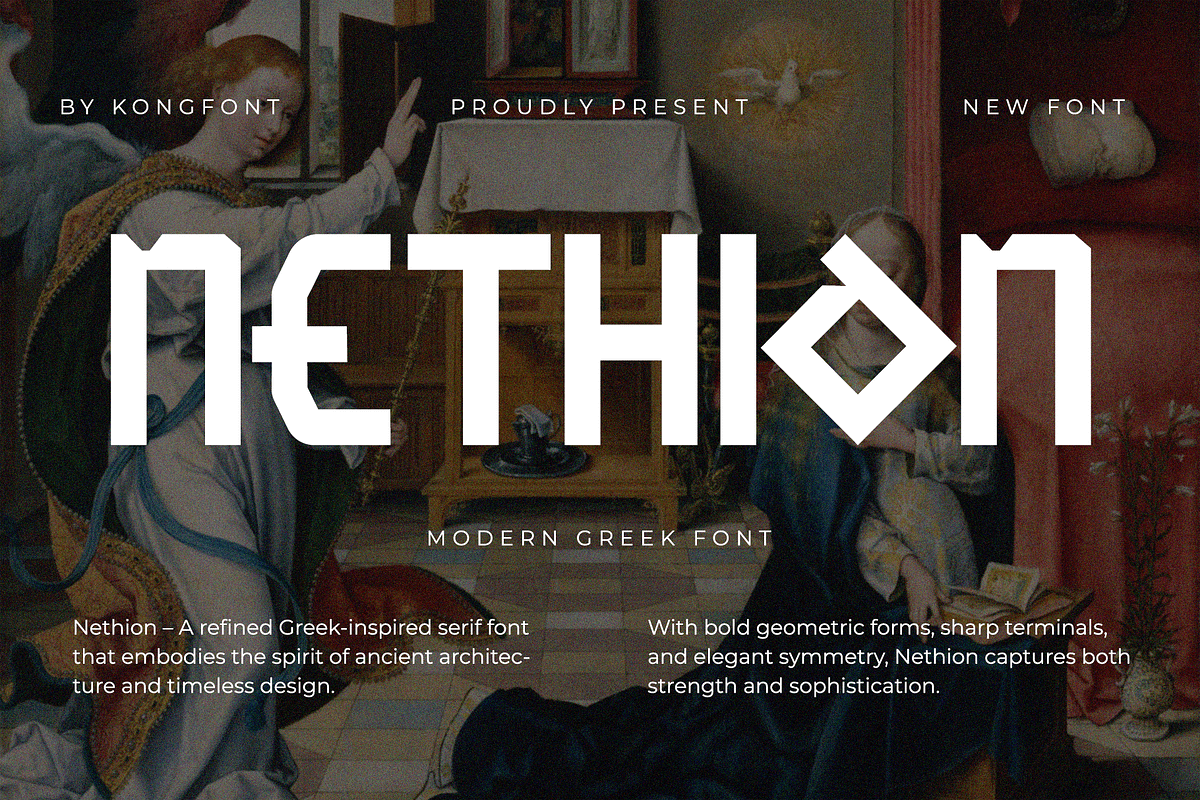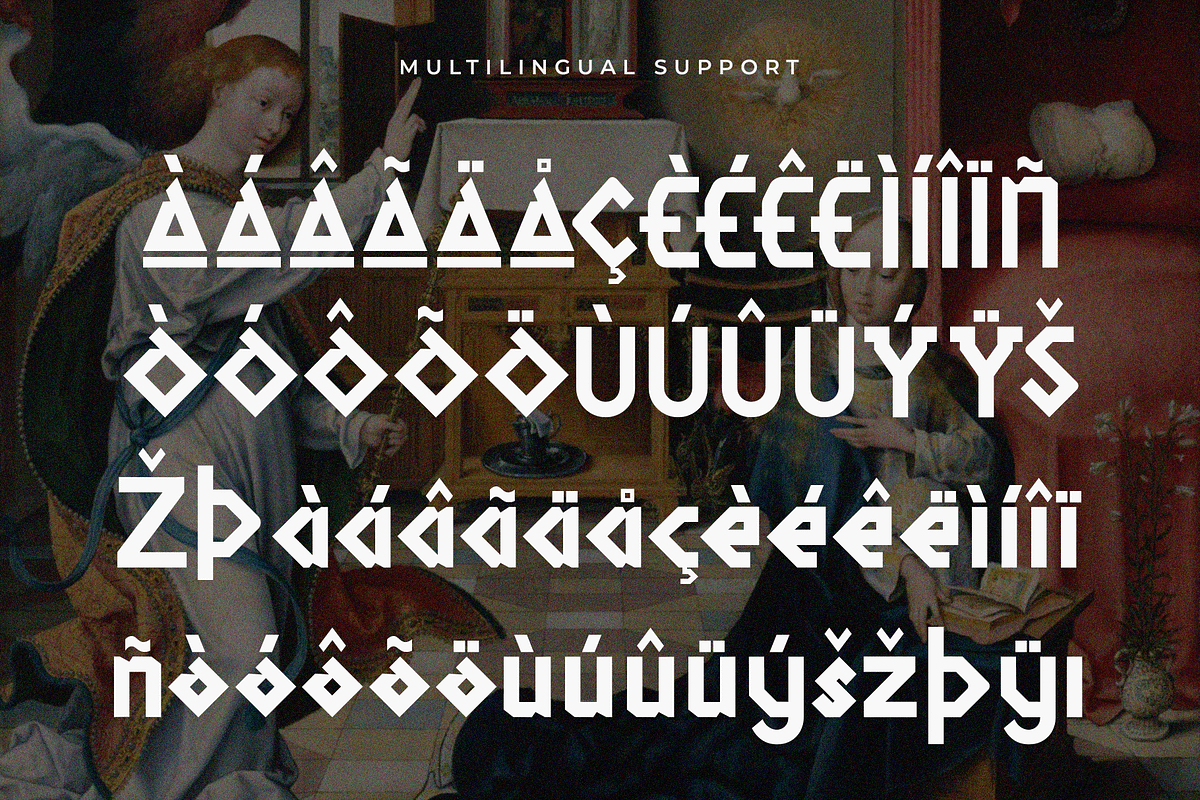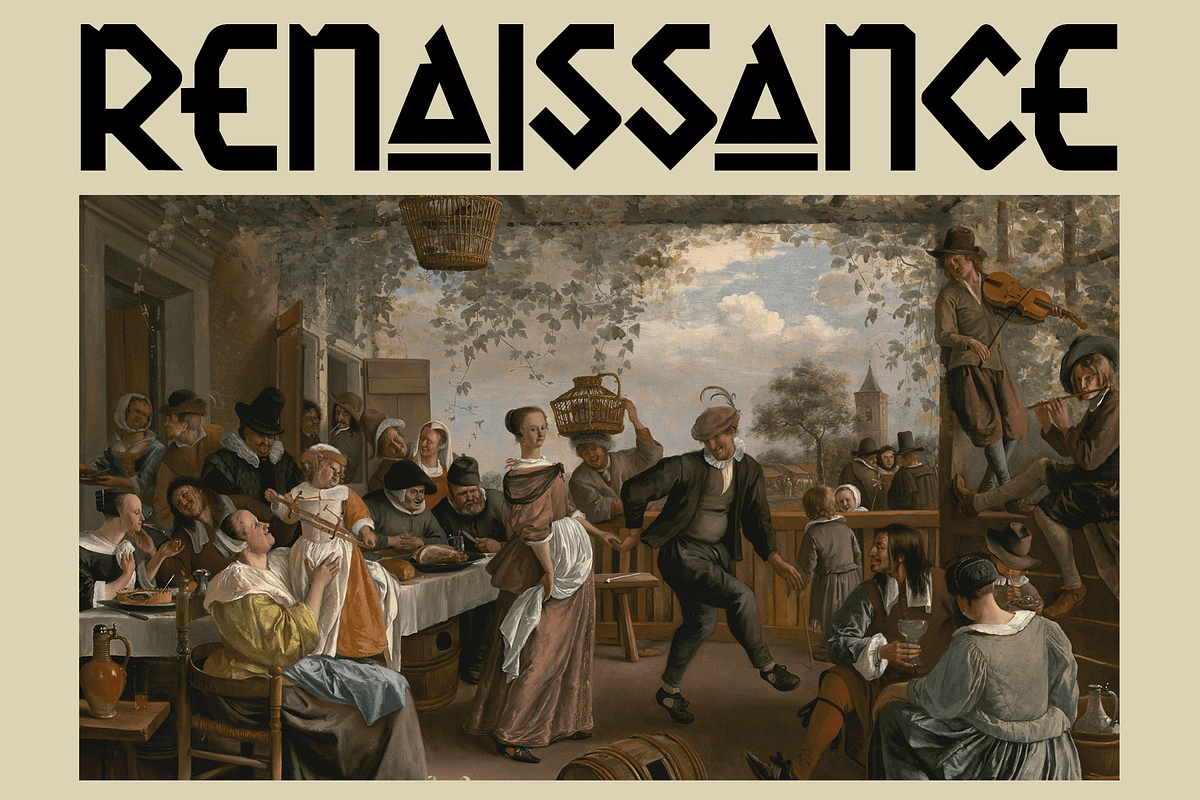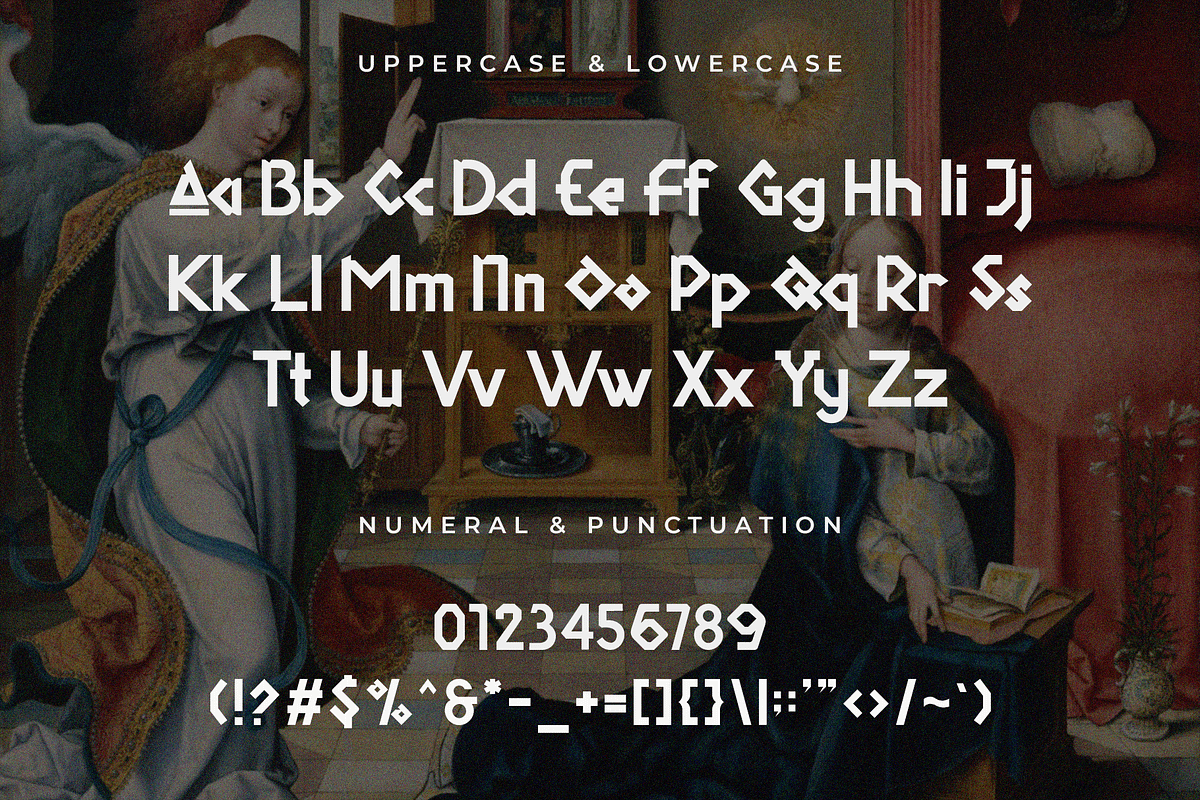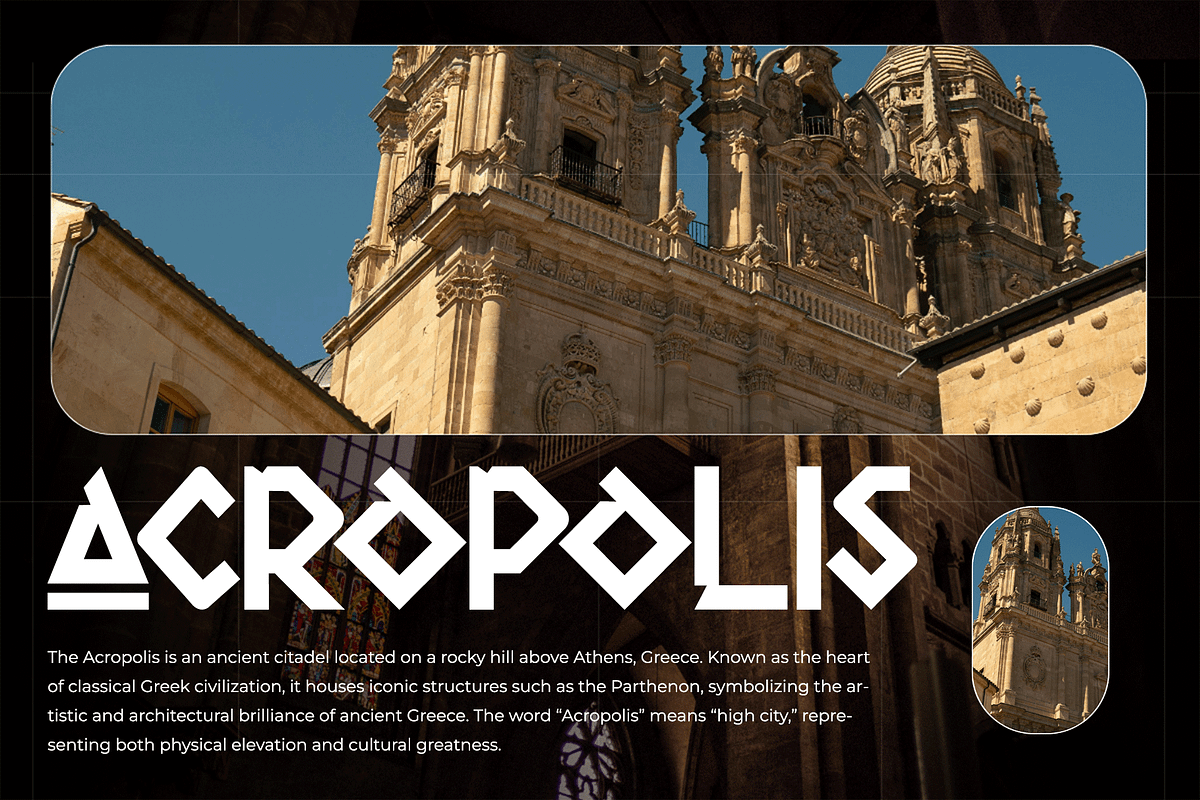
Nethion – Modern Greek Font
Meet Nethion, a modern Greek font that blends classical letterform traditions with a sleek, contemporary style. Inspired by the beauty of ancient Greek inscriptions, Nethion reimagines them through clean lines and balanced geometry, making it ideal for modern branding and design projects.
Perfect for headlines, logos, posters, and cultural themes, Nethion brings a sense of strength, history, and sophistication to your typography. Its versatility allows it to fit seamlessly in both creative and professional contexts, adding a distinctive Mediterranean character to your work.